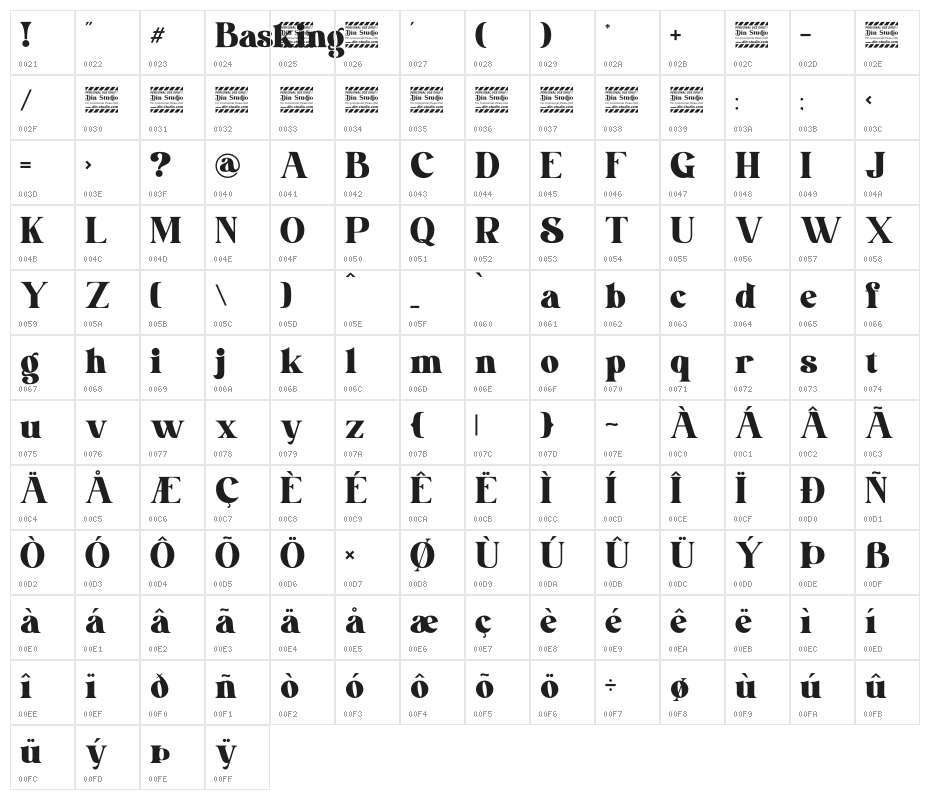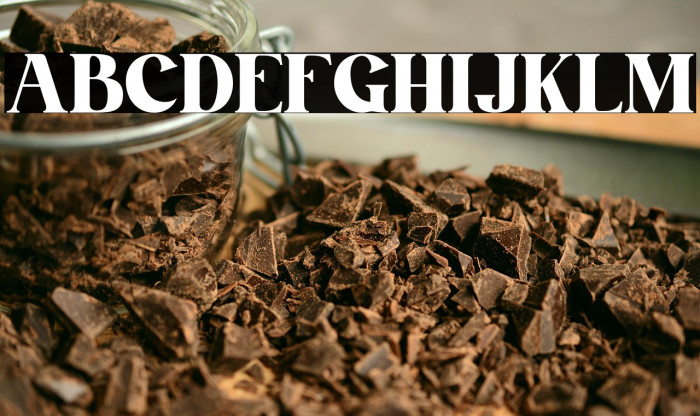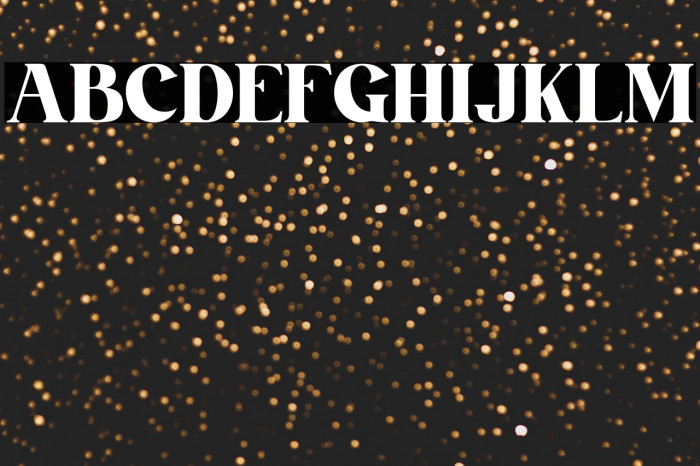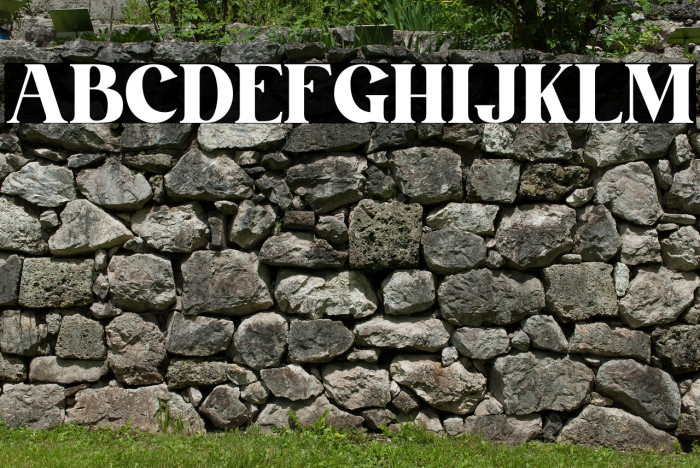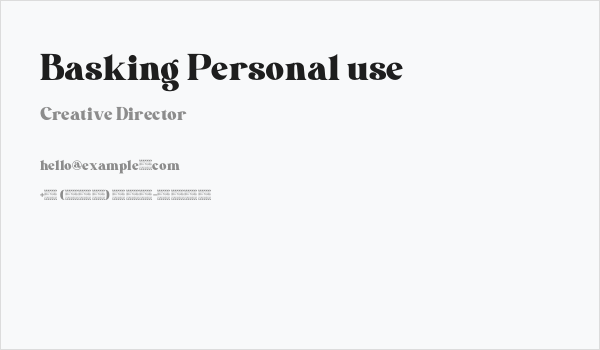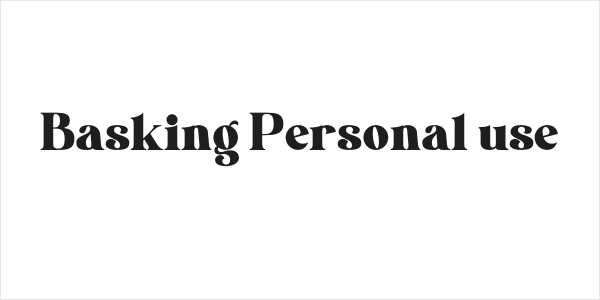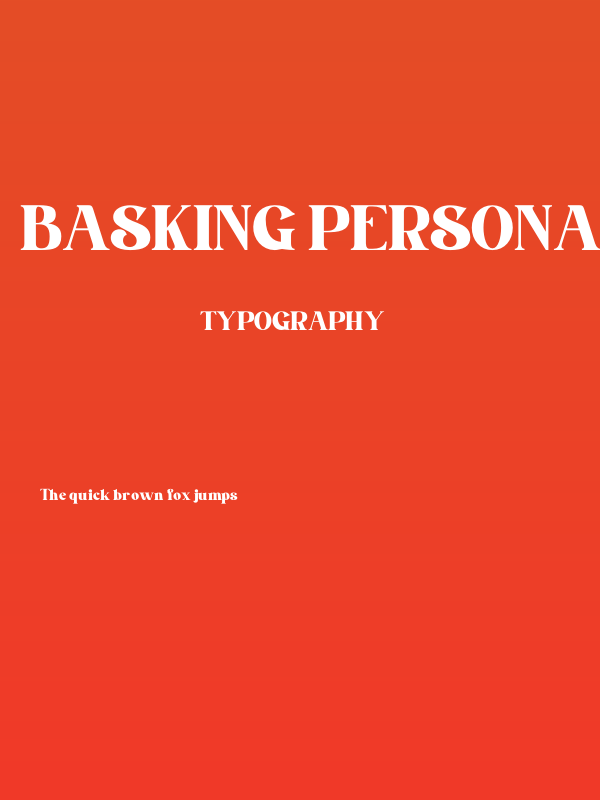
Basking Personal use Font
Basking Personal use Description
This font features a bold and dramatic serif style with high contrast between thick and thin strokes, giving it a strong and impactful appearance. The uppercase letters are particularly striking, with sharp serifs and a slightly condensed form that adds to its commanding presence. The lowercase letters maintain the boldness, with rounded forms that provide a touch of elegance. The numerals and special characters are consistent with the overall bold and expressive style, making it suitable for attention-grabbing designs. The font's unique character and high contrast make it ideal for projects that require a strong visual impact.
| Proposed Projects | Ideal for headlines, posters, branding, and editorial design where a strong visual impact is needed. |